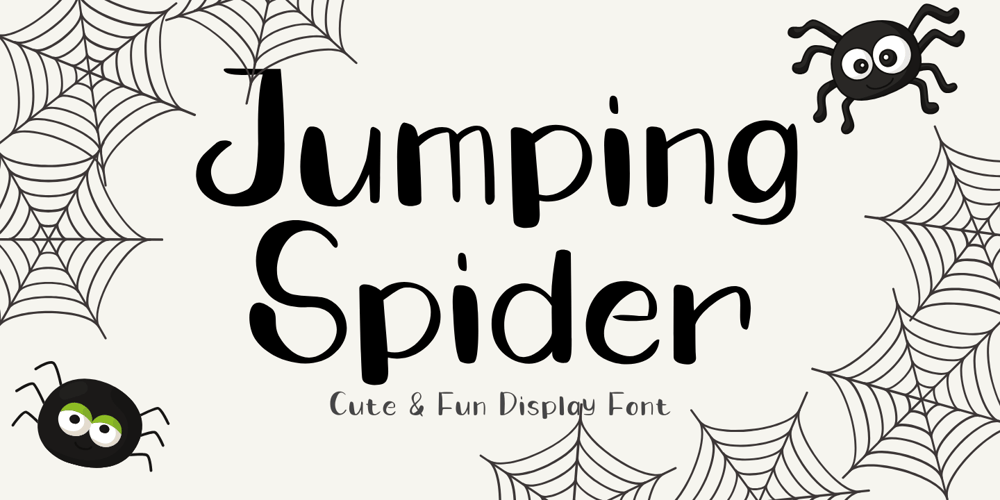
Jumping Spider Font Family was designed by Doli Harahap and published by Tigade Std. Jumping Spider contains 1 styles and family package options. Jumping Spider. This font is cuteness overload. It is for everyone, for various design purposes. This font is suitable for happy themes, cute, parties, holidays, kids, and many more. It is also suitable for logos, Cards, Branding, Social Media, Youtube Thumbnail, advertisements, Posters, and many others.